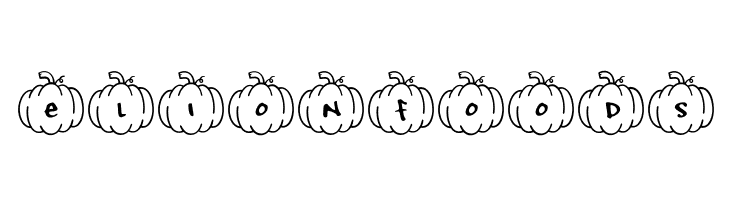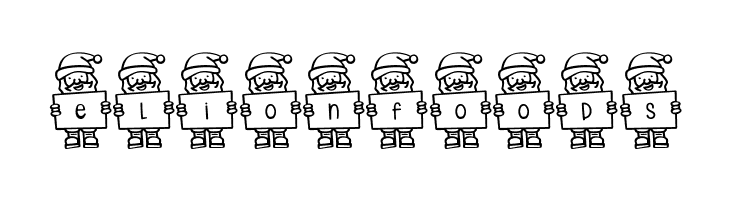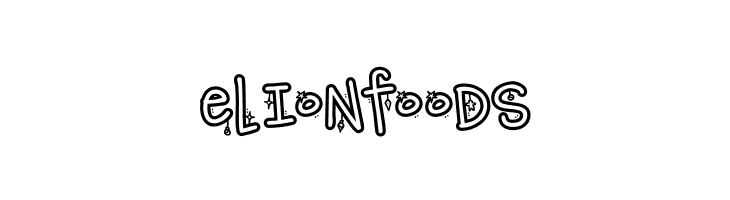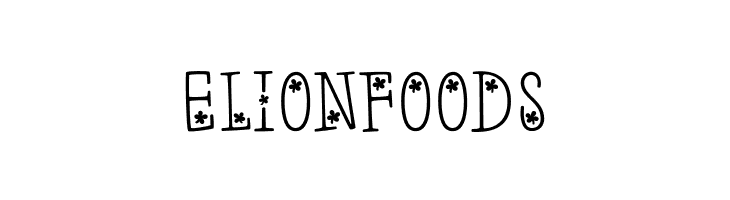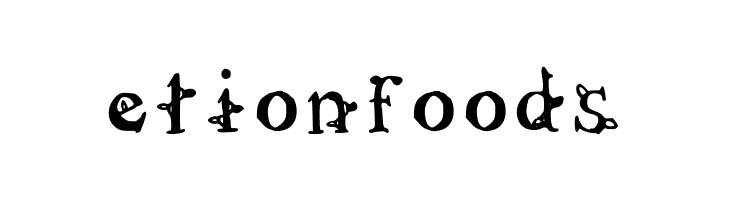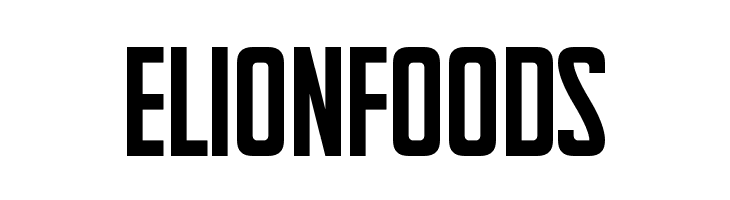
A playful, pumpkin-themed font with a hand-drawn, cartoonish style.
A festive, snowflake-adorned font perfect for holiday-themed designs.
A festive, snowflake-themed decorative font perfect for holiday designs.
A festive, decorative font with Santa figures holding letters and numbers.
A festive, decorative font with Christmas-themed embellishments on each character.
A festive, ornament-adorned font perfect for holiday projects.
A playful, decorative font with clover accents and bold, rounded characters.
A spooky, Halloween-themed decorative font with playful, eerie elements.
A festive serif font with decorative, Christmas-themed embellishments.
A bold, tall, and narrow font ideal for impactful headlines.